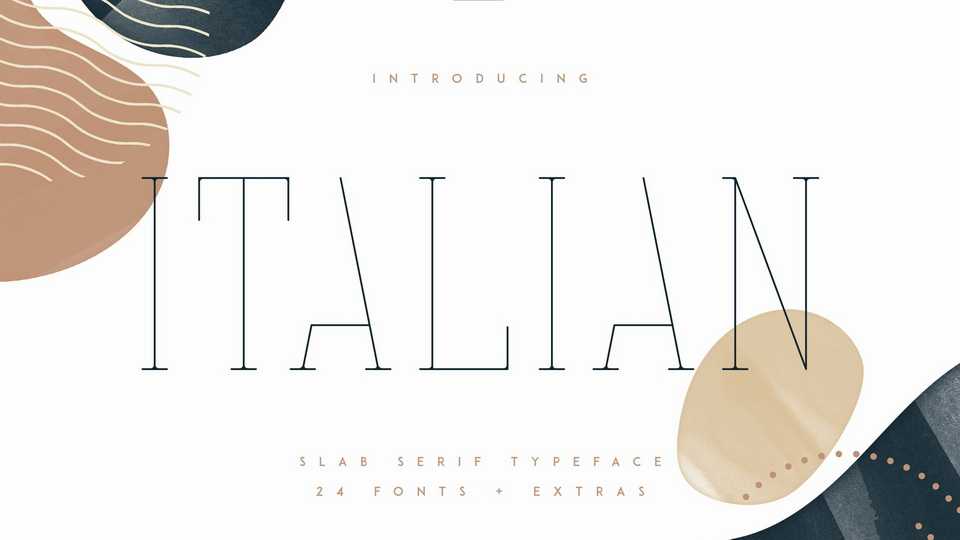
Download Italian font, a tall and clean typeface, very versatile to work great in both large and small sizes. Italian is perfect for branding projects, home-ware designs, product packaging, magazine headers – or simply as a stylish text overlay to any background image.
Designer: VP Creative Shop